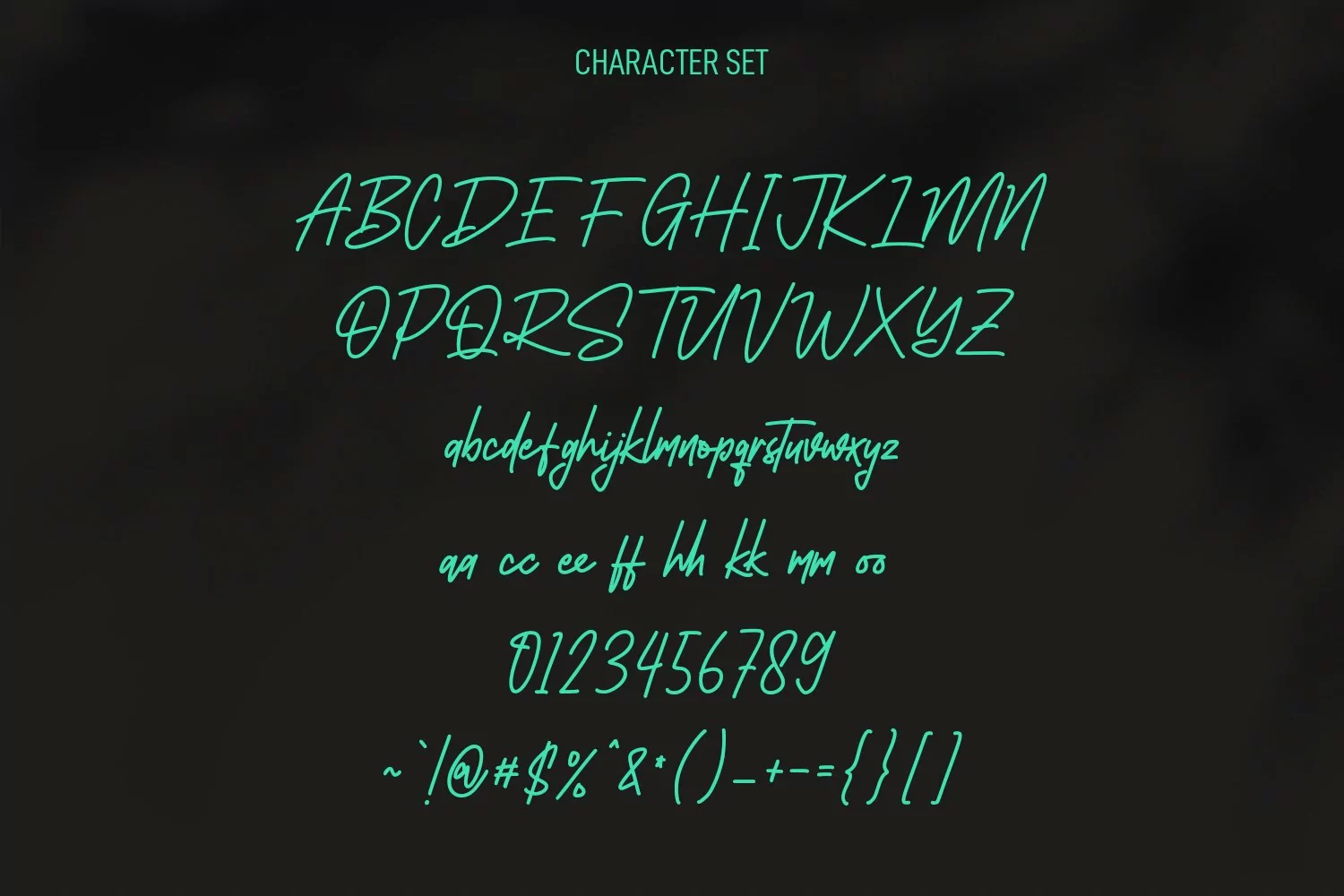
Southavely is a casual signature font. With regular mono-line stroke, slanted and fun character with a bit of ligatures. To give you an extra creative work. Southavely font support multilingual more than 100+ language. This font is good for logo design, Social media, Movie Titles, Books Titles, a short text even a long text letter and good for your secondary text font with sans or serif. Make a stunning work with Southavely font.